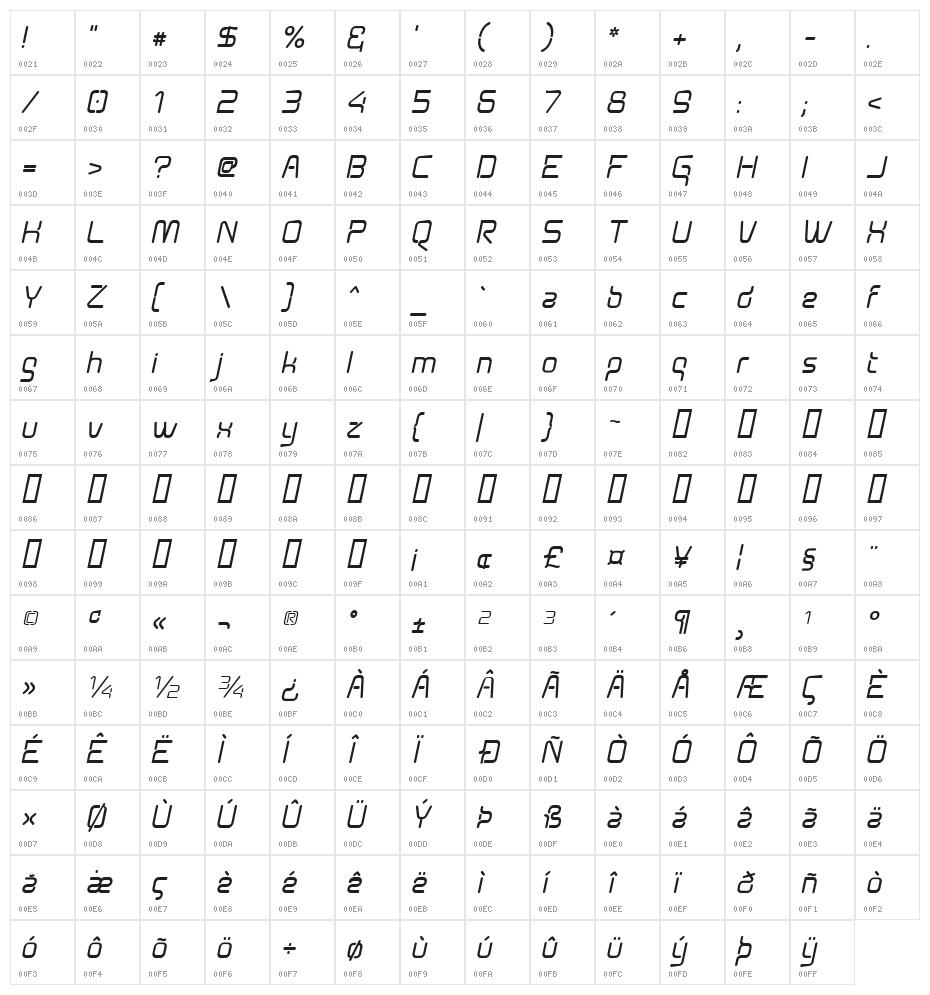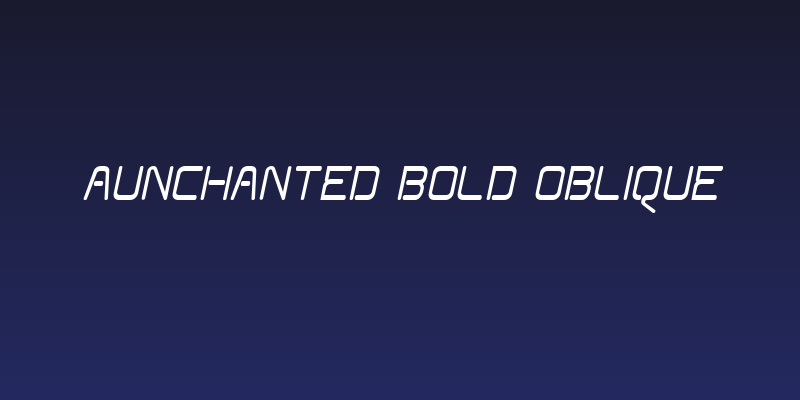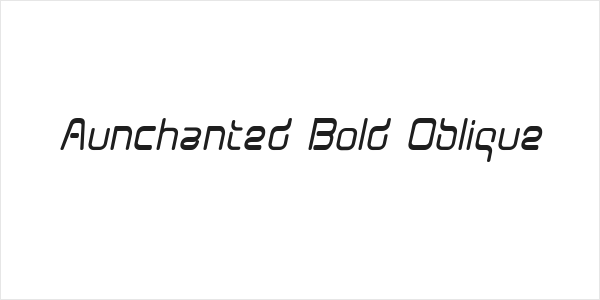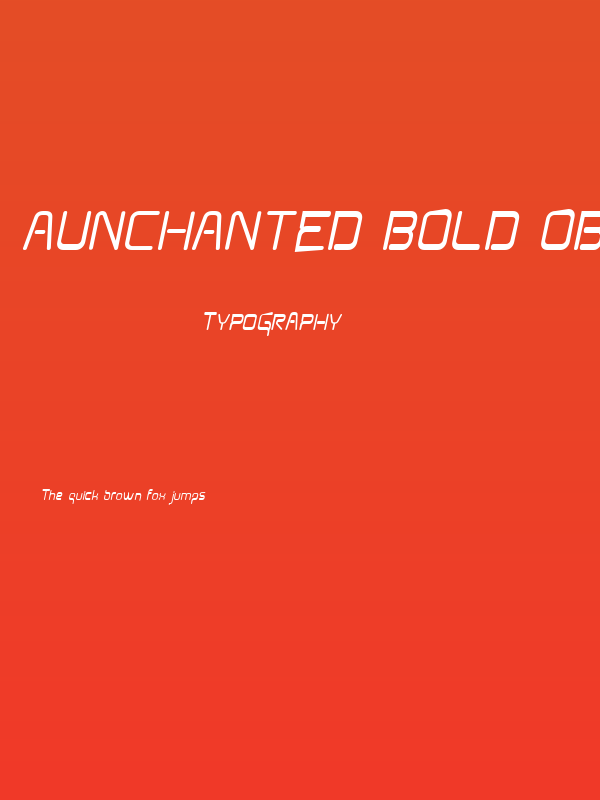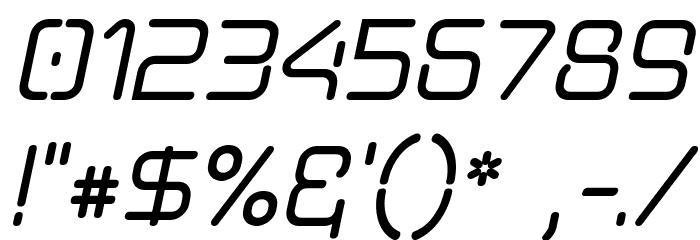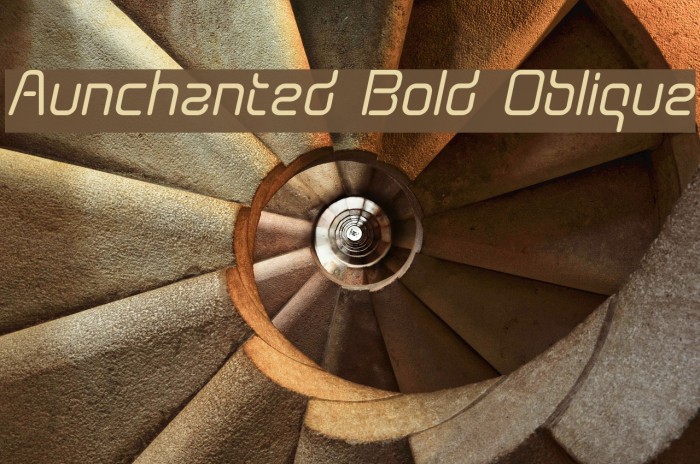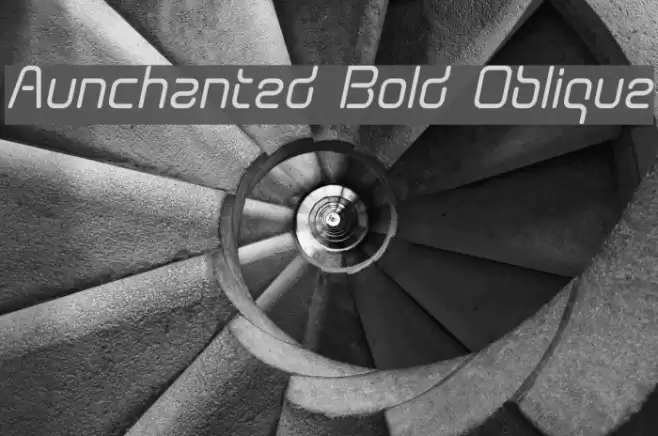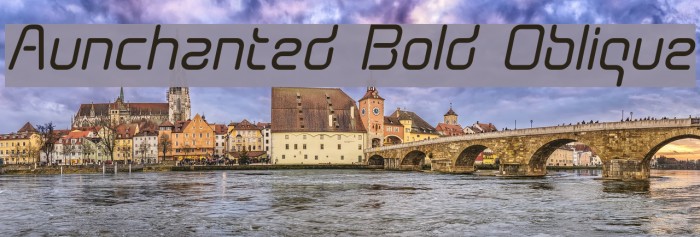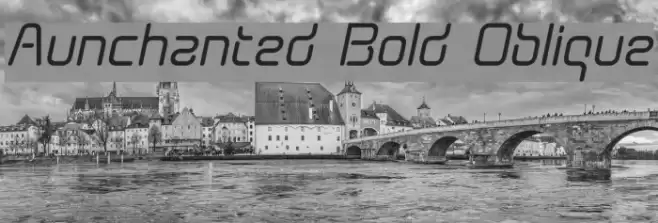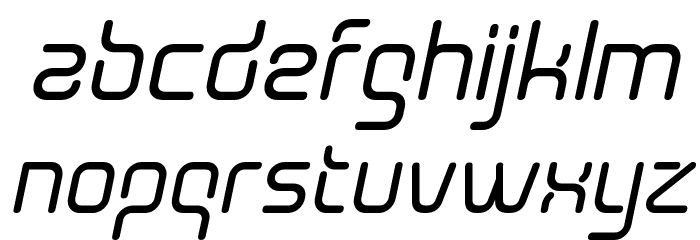
Aunchanted Bold Oblique Font
Aunchanted Bold Oblique Description
This font features a modern, sleek design with a futuristic touch. The characters are slightly oblique, giving a sense of motion and dynamism. The strokes are consistent in weight, providing a clean and uniform appearance. The rounded edges soften the overall look, making it approachable yet sophisticated. The font maintains a balanced proportion between height and width, ensuring readability across various sizes. Its geometric structure is evident in the uniformity of the curves and angles, making it ideal for tech-oriented designs.
| Use Case | Headlines, Logos, Digital Interfaces |
| Proposed Projects | Ideal for technology branding, modern advertising, digital interfaces, and futuristic-themed projects. |